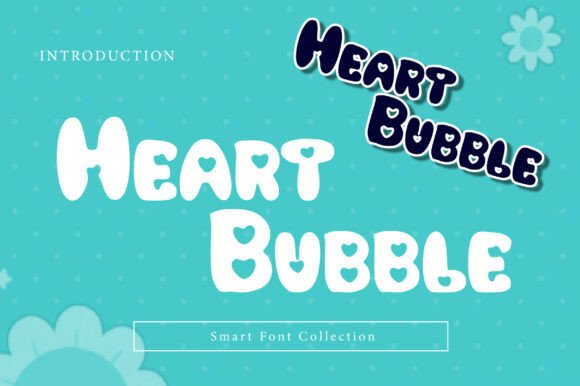
Heart Bubble
Finding the right design elements can be challenging, but Heart Bubble offers an exceptional collection that elevates your work instantly.
Whether you are creating POD (Print on Demand) products, wedding invitations, or social media graphics, Heart Bubble is an ideal fit.